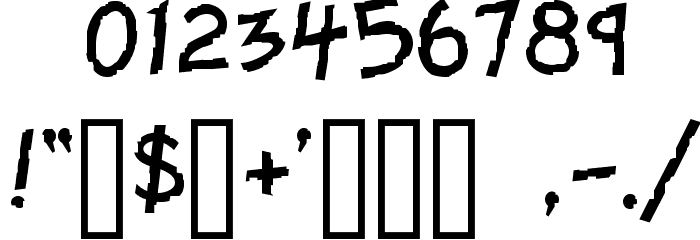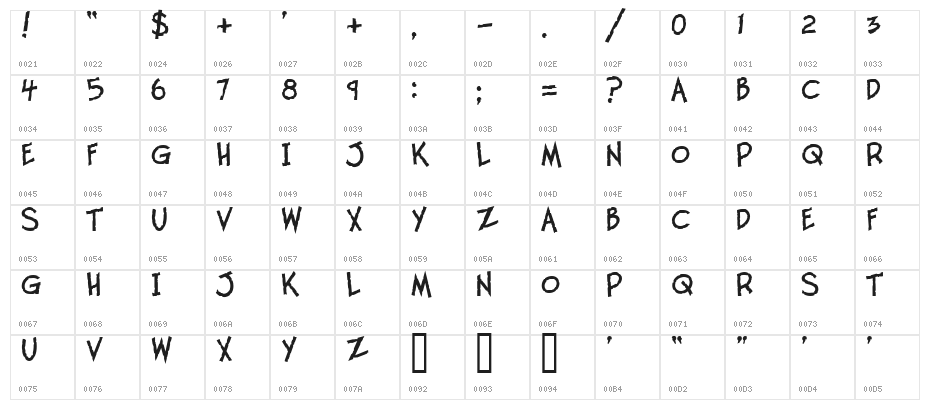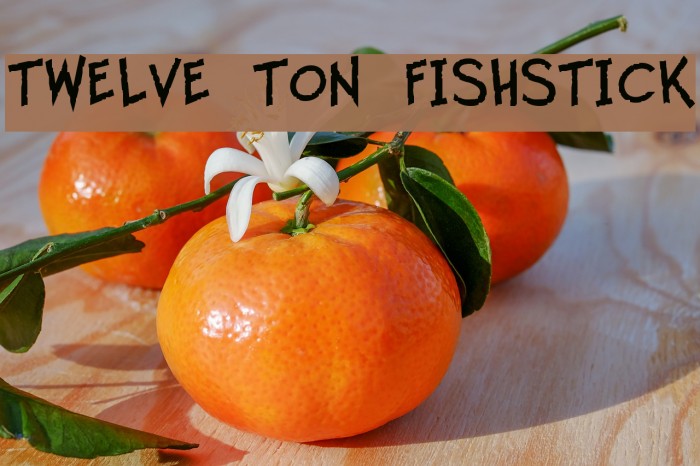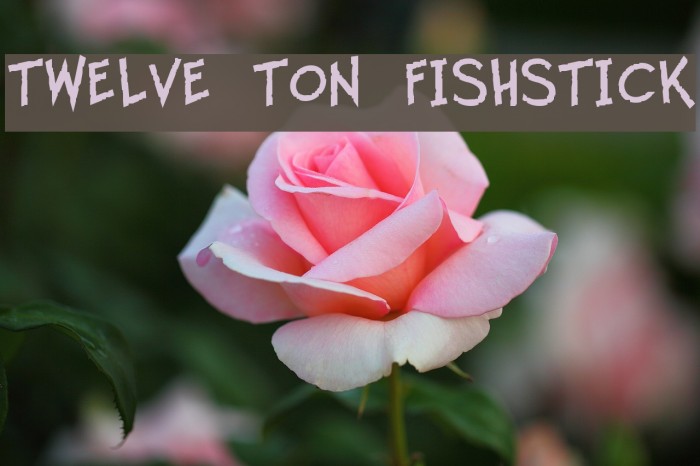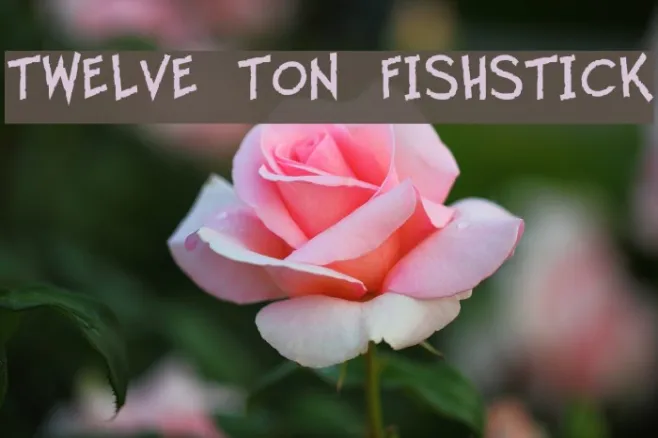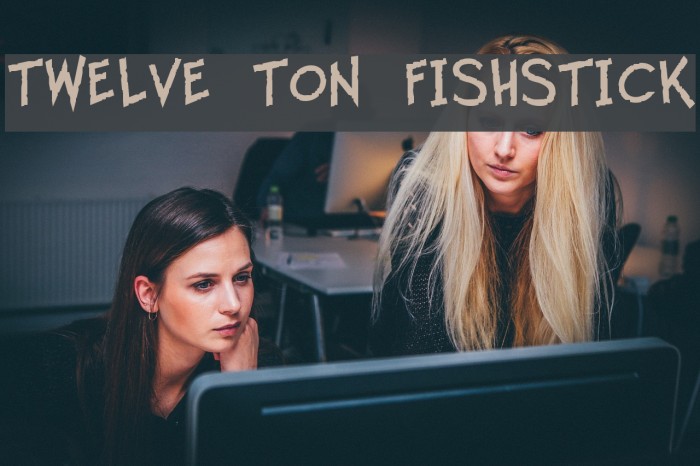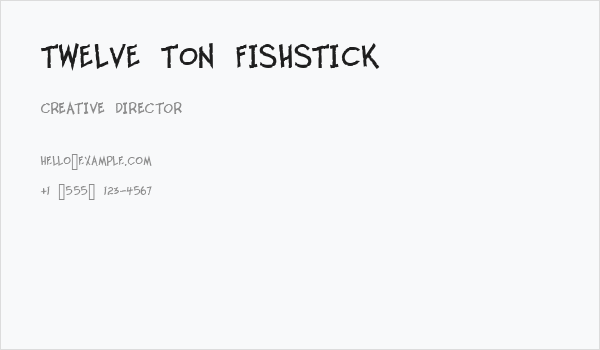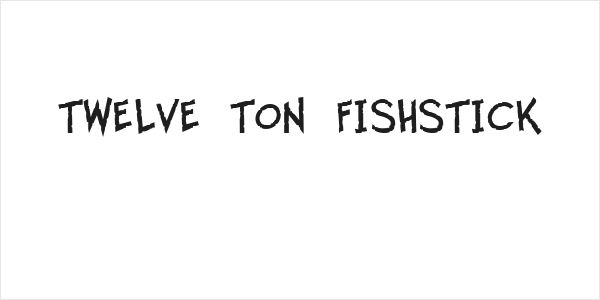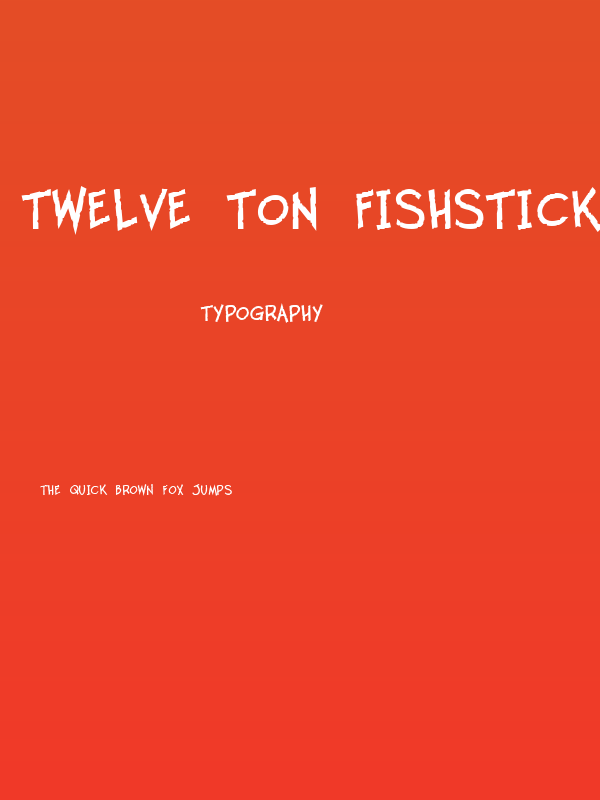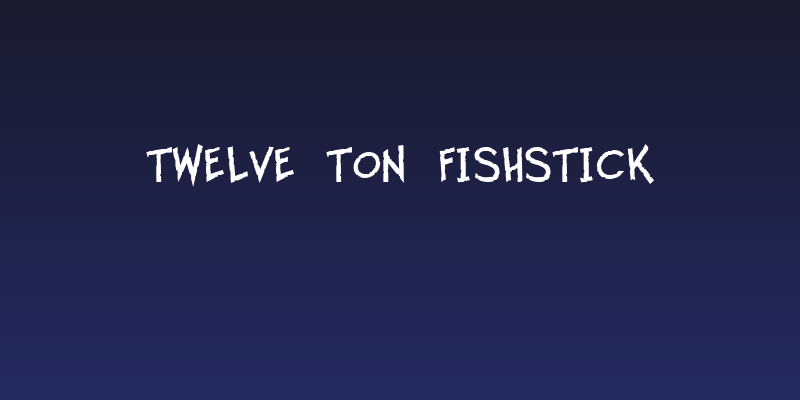
Twelve Ton Fishstick Font
Twelve Ton Fishstick Description
This font features a playful and slightly chaotic style, characterized by its uneven and jagged edges. The letters have a hand-drawn appearance, giving them a casual and informal vibe. The uppercase and lowercase letters maintain a consistent style, with a slight slant that adds to the dynamic feel. The numbers and special characters follow the same design principles, ensuring a cohesive look across all characters. This font is ideal for projects that require a fun and quirky touch, such as children's books, comic strips, or playful branding.
| Overall Style | Playful, Casual |
| Proposed Projects | Children's books, comic strips, playful branding, informal invitations. |